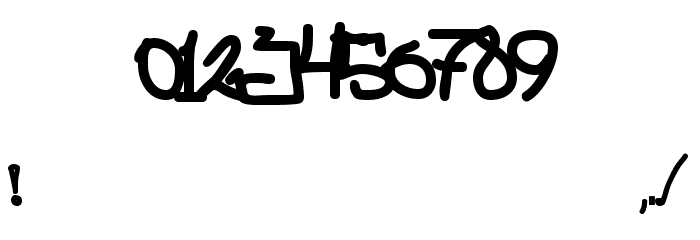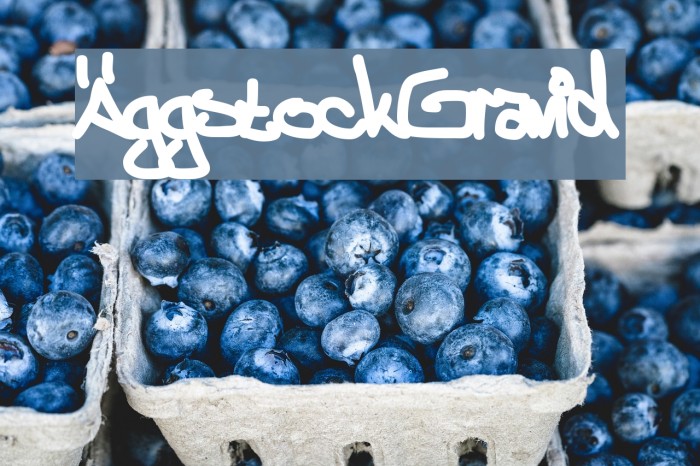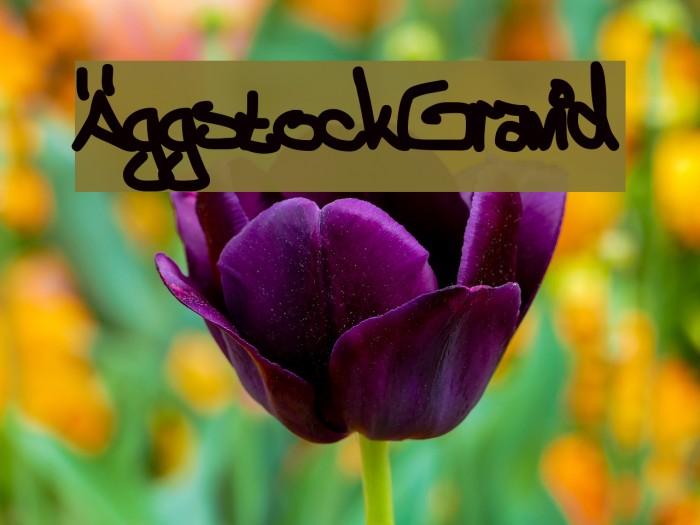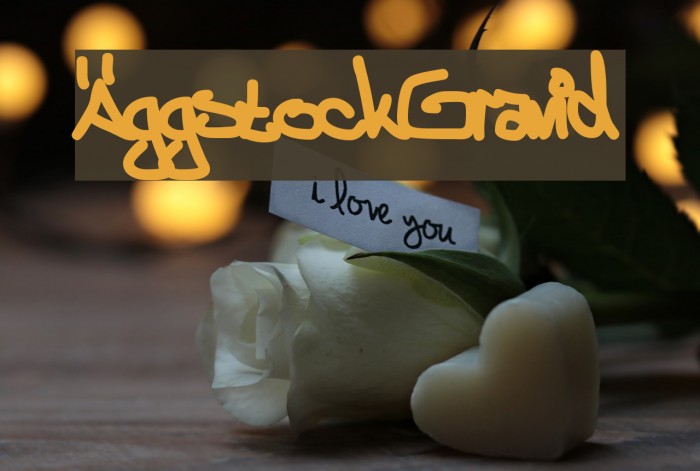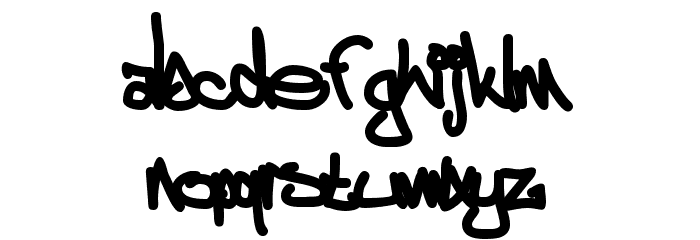
ÄggstockGravid Font
ÄggstockGravid Description
This font features a bold, handwritten style with a playful and energetic appearance. The letters are characterized by thick strokes and a dynamic flow, giving it a casual and informal feel. The uppercase and lowercase letters maintain a consistent style, with the uppercase being slightly more structured. Numbers and special characters follow the same lively design, making the font versatile for various creative applications. The overall look is expressive and artistic, suitable for projects that aim to convey a sense of fun and spontaneity.
| Use Case | Logos, Posters, Creative Projects |
| Proposed Projects | Ideal for greeting cards, children's book covers, playful branding, and artistic posters. |